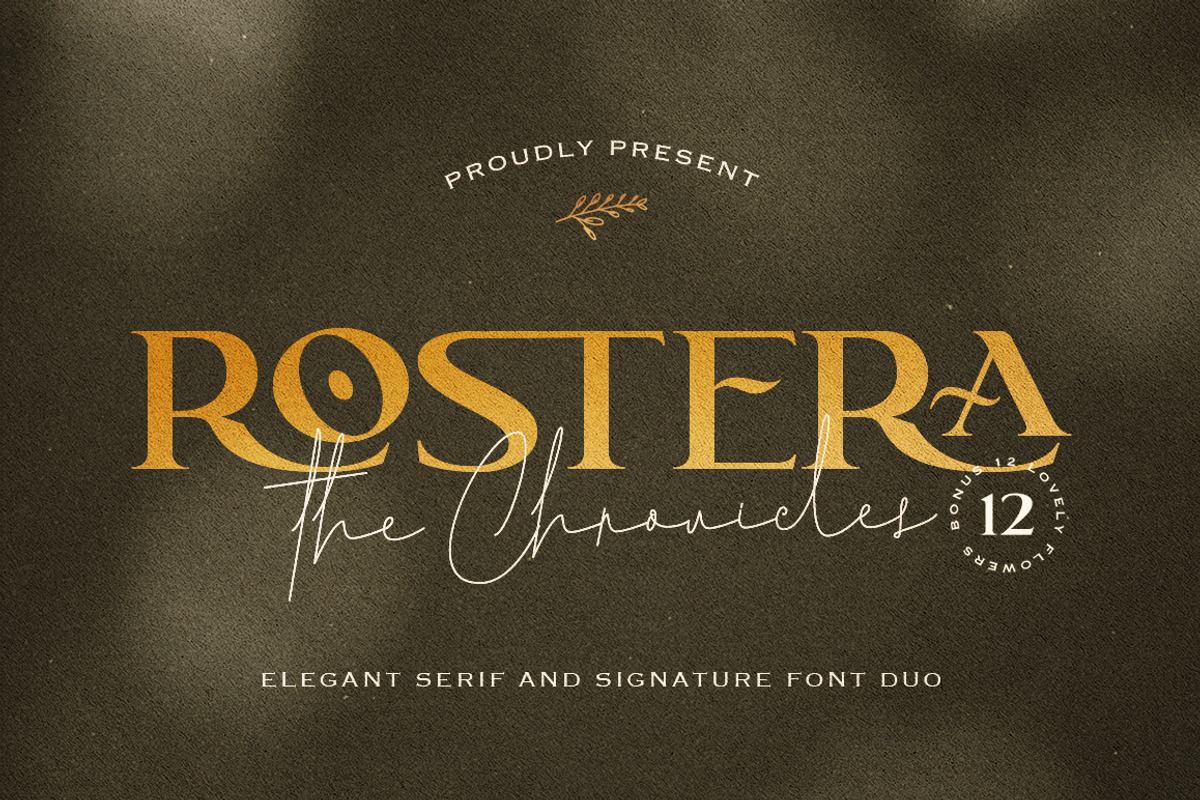
Rostera the Chronicles Font Duo Free Download is a beautifully crafted typeface pair that combines a bold serif with an elegant script, offering the perfect balance of strength and grace. Ideal for book covers, fantasy titles, branding, invitations, posters, and storytelling-focused designs, this duo brings a magical, cinematic feel to your typography.
The serif font delivers classic structure and impact, while the script adds a flowing, handwritten charm—perfect for emphasizing key elements or adding a personal touch. Together, they create dynamic and memorable compositions for both digital and print projects.